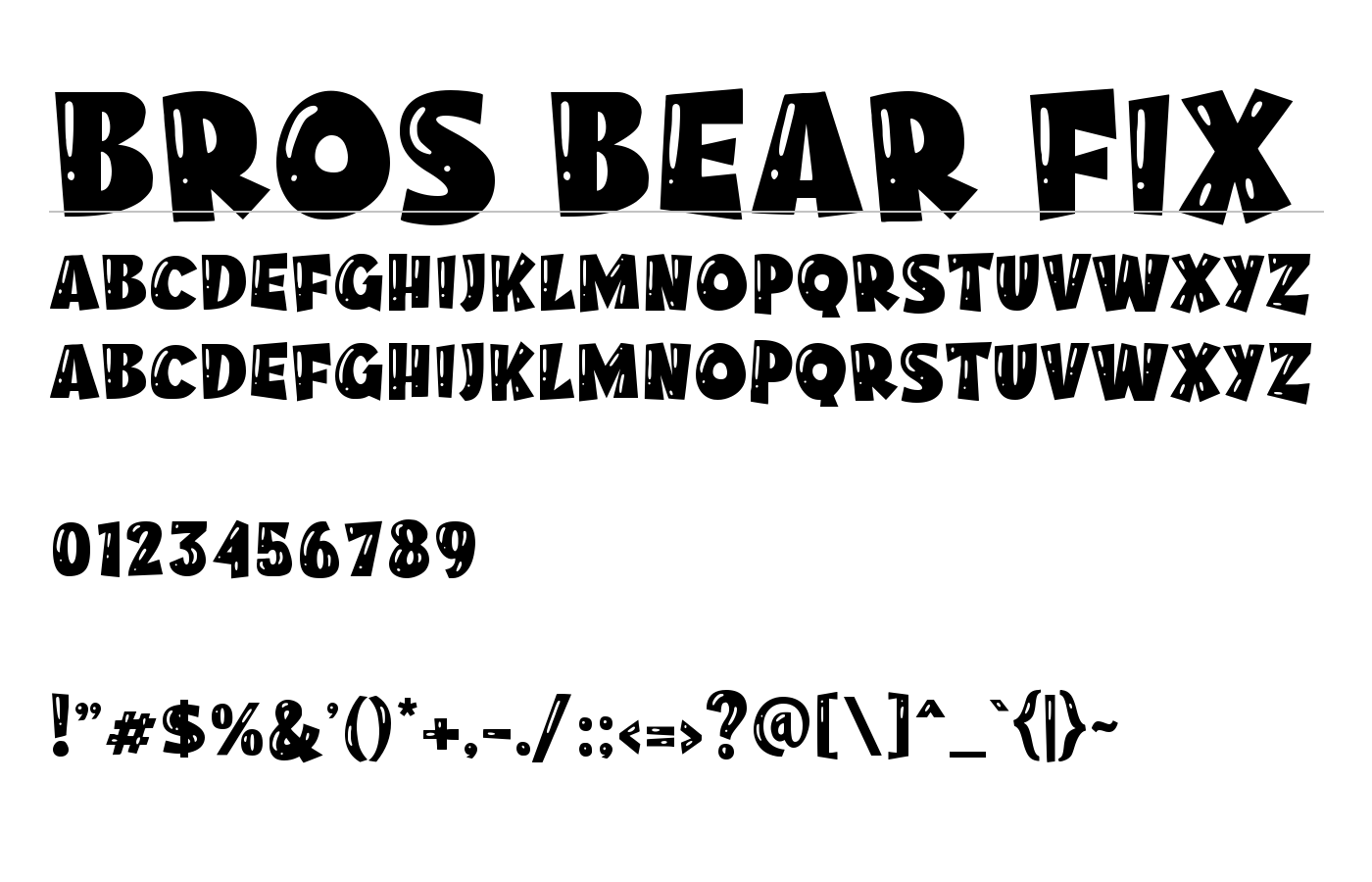
Bros Bear Fix is a bold, playful display font with a chunky, irregular style that feels fun and energetic. Its quirky letterforms and uneven shapes make it perfect for creative projects, children's designs, and casual branding where a lively, informal vibe is desired. This font stands out in headlines, posters, and packaging where a unique, eye-catching look is needed.
Bros Bear Fix Font
About Bros Bear Fix Font
| Font family | Bros Bear Fix Font |
| Designer | Muhammad Sirojuddin |